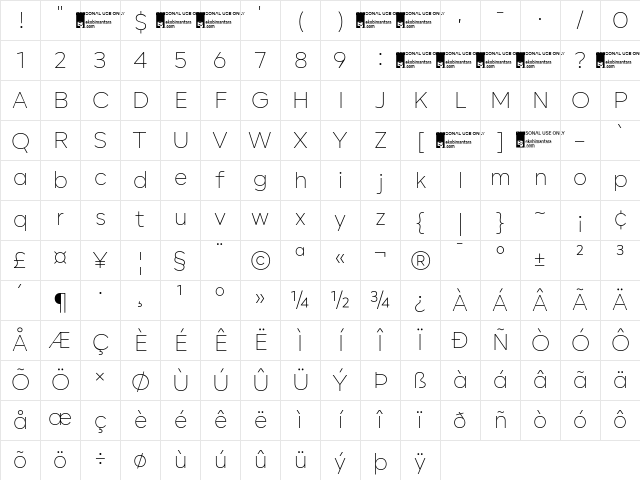
Geova Trial Thin is a composed and adaptable typeface that performs quietly and consistently across a wide range of design contexts. Its slender proportions lend an understated elegance to any composition.